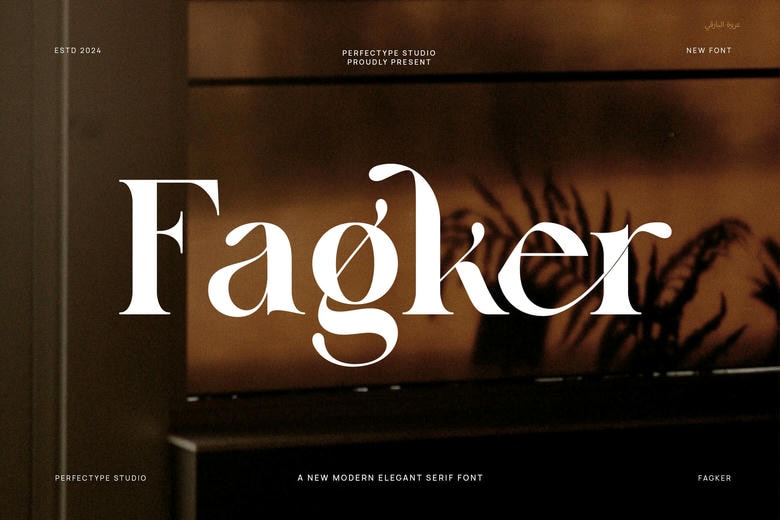
Fagker Font
Fagker is a serif font created to bring elegance and luxury to your designs. It offers a range of beautiful and unique ligatures and alternate forms. This font works well for branding, logos, social media posts, ads, labels, packaging, photography, wedding designs, watermarks, invitations, stationery, and other projects where high readability is desired.